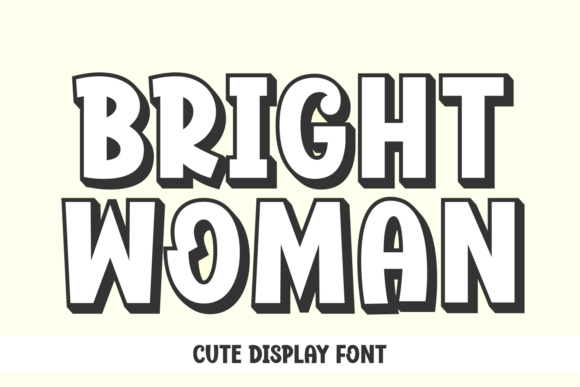
Bright Woman Font: A Fun and Playful Display Font
Are you looking for a font that can add a touch of fun and playfulness to your designs? Look no further than Bright Woman, a bold and cheerful display font that’s perfect for projects that need a happy, standout vibe. In this article, we’ll take a closer look at Bright Woman, its features, and how you can use it to bring your designs to life.
What is Bright Woman Font?
Bright Woman is a bold and cheerful display font that shines with confidence and creativity. This font brings together strong shapes and playful curves, making every word pop with personality. Its cute, cartoon-inspired style is full of energy and perfect for projects that need a happy, standout vibe.
How to Use Bright Woman Font
Bright Woman is a versatile font that can be used for a variety of projects, including:
- Children’s books: Add a touch of fun and playfulness to your children’s books with Bright Woman.
- Logos: Create a bold and cheerful logo for your business or brand with Bright Woman.
- Posters: Design eye-catching posters for events, promotions, or advertising with Bright Woman.
- T-shirt prints: Add a fun and playful touch to your t-shirt designs with Bright Woman.
- Greeting cards: Create cheerful and personalized greeting cards for special occasions with Bright Woman.
- Packaging: Add a touch of fun and playfulness to your product packaging with Bright Woman.
- Social media graphics: Design fun and engaging social media graphics with Bright Woman.
Benefits of Using Bright Woman Font
Bright Woman offers several benefits, including:
- Instant charm and friendliness: Bright Woman adds a touch of fun and playfulness to your designs, making them more approachable and engaging.
- Flexibility: The font includes both Regular and Combo versions, giving you flexibility to mix, match, and layer for eye-catching results.
- Bold and approachable: Bright Woman is bold enough to make a statement but soft enough to stay approachable.
- Celebrates creativity and positivity: Bright Woman is a font that celebrates creativity, positivity, and fun design.
Bright Woman Font Features
Bright Woman font features include:
- Regular and Combo versions: The font includes both Regular and Combo versions, giving you flexibility to mix, match, and layer for eye-catching results.
- Cute and cartoon-inspired style: Bright Woman has a cute and cartoon-inspired style that’s full of energy and perfect for projects that need a happy, standout vibe.
- Strong shapes and playful curves: The font brings together strong shapes and playful curves, making every word pop with personality.
Tips and Tricks for Using Bright Woman Font
Here are some tips and tricks for using Bright Woman font:
- Experiment with different colors: Bright Woman font looks great in bright and bold colors, so don’t be afraid to experiment with different colors to find the perfect combination for your design.
- Mix and match with other fonts: Bright Woman font can be paired with other fonts to create interesting and unique combinations.
- Use it for headlines and titles: Bright Woman font is perfect for headlines and titles, where you want to make a bold and cheerful statement.
Bright Woman font is a fun and playful display font that’s perfect for projects that need a happy, standout vibe. With its bold and cheerful style, it’s ideal for designs that require a touch of fun and playfulness. Whether you’re designing children’s books, logos, posters, t-shirt prints, greeting cards, packaging, or fun social media graphics, Bright Woman adds instant charm and friendliness to your work.